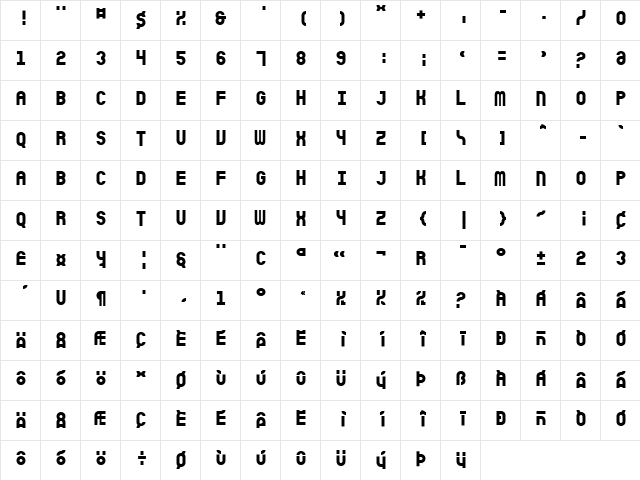
Sicret Mono PERSONAL Semi Bold Font Preview
| Foundry | Mans Greback AB |
| Designer | Mans Greback |
Design Context for Sicret Mono PERSONAL Typeface
Sicret Mono PERSONAL brings the precise, column-aligned rhythm of monospaced typography to designs that value technical clarity and systematic order. The heavy weight commands attention and anchors typographic hierarchies.